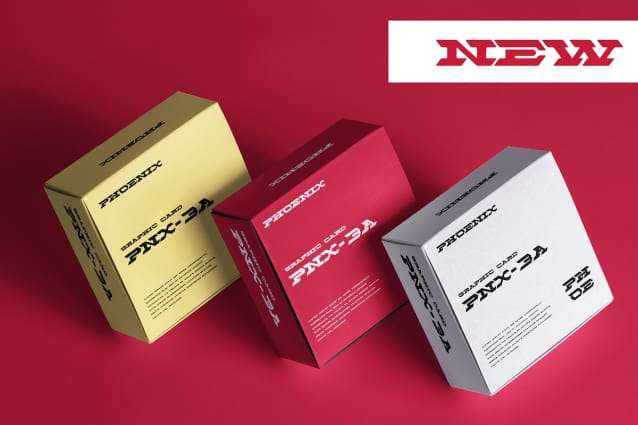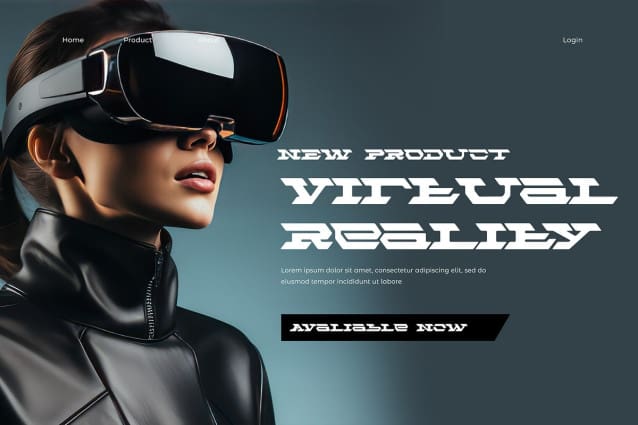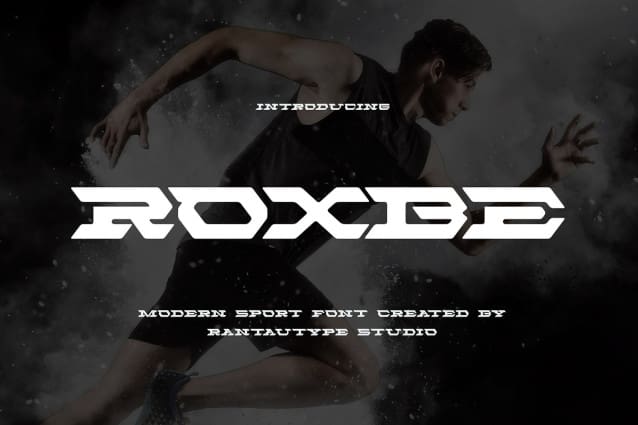
Roxbe Sport Font
Roxbe Sport Font is modern font inspire from sport and futuristic visual design. Roxbe come with strong and unique shape to make you design project attractive and stand out. Roxbe is complate font with alternate, ligature and already support multilingual character.
Roxbe Sport Font is a perfectly choice for any creative endeavor, chic, lifestyle design such as logos, advertisements, stationery, branding project, display and magazine, invitation, corporate brand, product design, label, business project and many other project with sporty or futuristic touch.